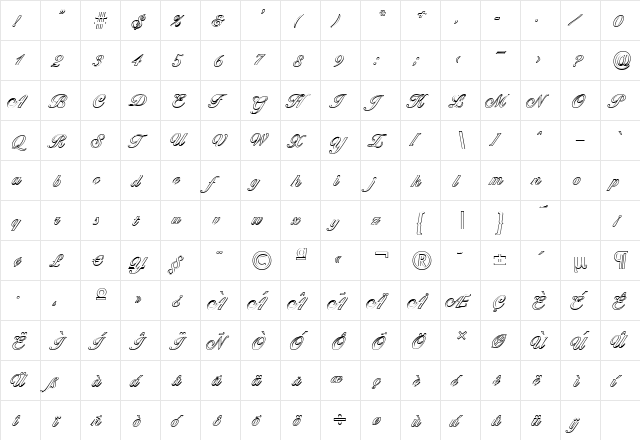
BallantinesOutline-Medium Regular
Design Context for BallantinesOutline-Medium Typeface
BallantinesOutline-Medium brings ornamental detail and strong personality to headlines and identities, where visual impact matters more than quiet functionality.
Font Pairing: Pair with a clean neutral sans-serif for body copy to let BallantinesOutline-Medium's character lead without overwhelming the composition.
Pro Tip: Use BallantinesOutline-Medium exclusively at display sizes — it was designed to be seen, not read at length. Let a neutral companion handle body copy.